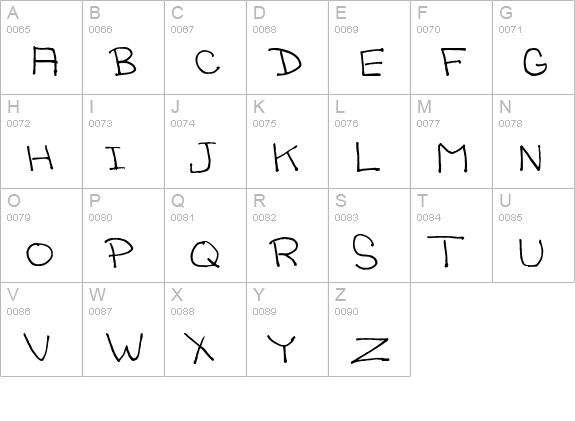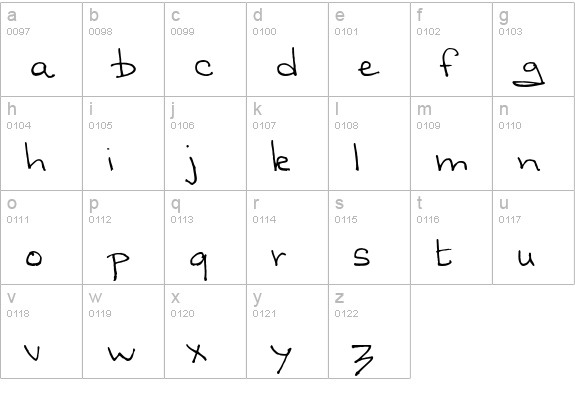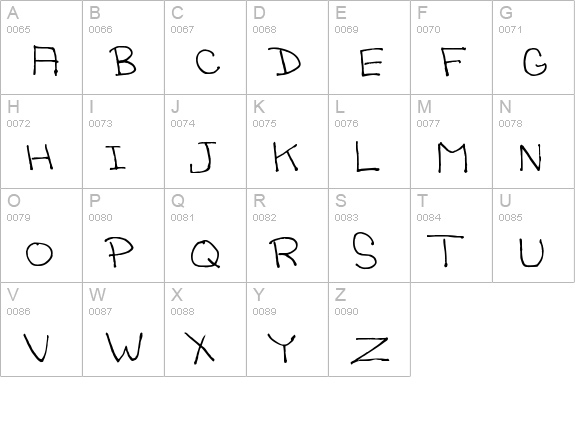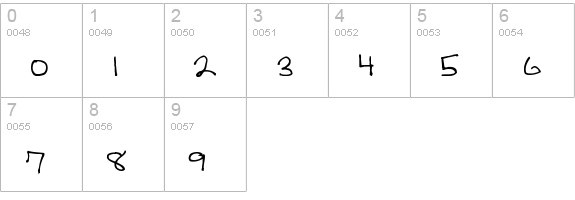
Sandscript BTN Font Details
Sandscript BTN is a captivating and distinctive font that effortlessly captures the essence of handwritten script. With its flowing strokes and elegant curves, this font exudes a sense of warmth and creativity, making it perfect for a variety of design projects. Whether you are creating invitations, logos, or social media graphics, Sandscript BTN adds a touch of sophistication and charm. Its versatile nature allows it to be used in both casual and formal contexts, adding a unique and personal touch to any design. One of the most appealing aspects of Sandscript BTN is that it is free to download. This means that designers and enthusiasts alike can easily access this stunning font without any cost. To obtain this font, simply visit FontsMarket.com and enjoy the freedom to use it in your personal and commercial projects. With Sandscript BTN, you can bring your designs to life with a font that is not only visually appealing but also conveys a sense of authenticity and creativity. Its smooth and fluid lines ensure readability, while its artistic flair sets it apart from other fonts. Whether you are a professional designer or a hobbyist, Sandscript BTN is a font that will enhance your work and inspire your creativity. So why wait? Head over to FontsMarket.com and download this remarkable font for free, and let your imagination run wild.